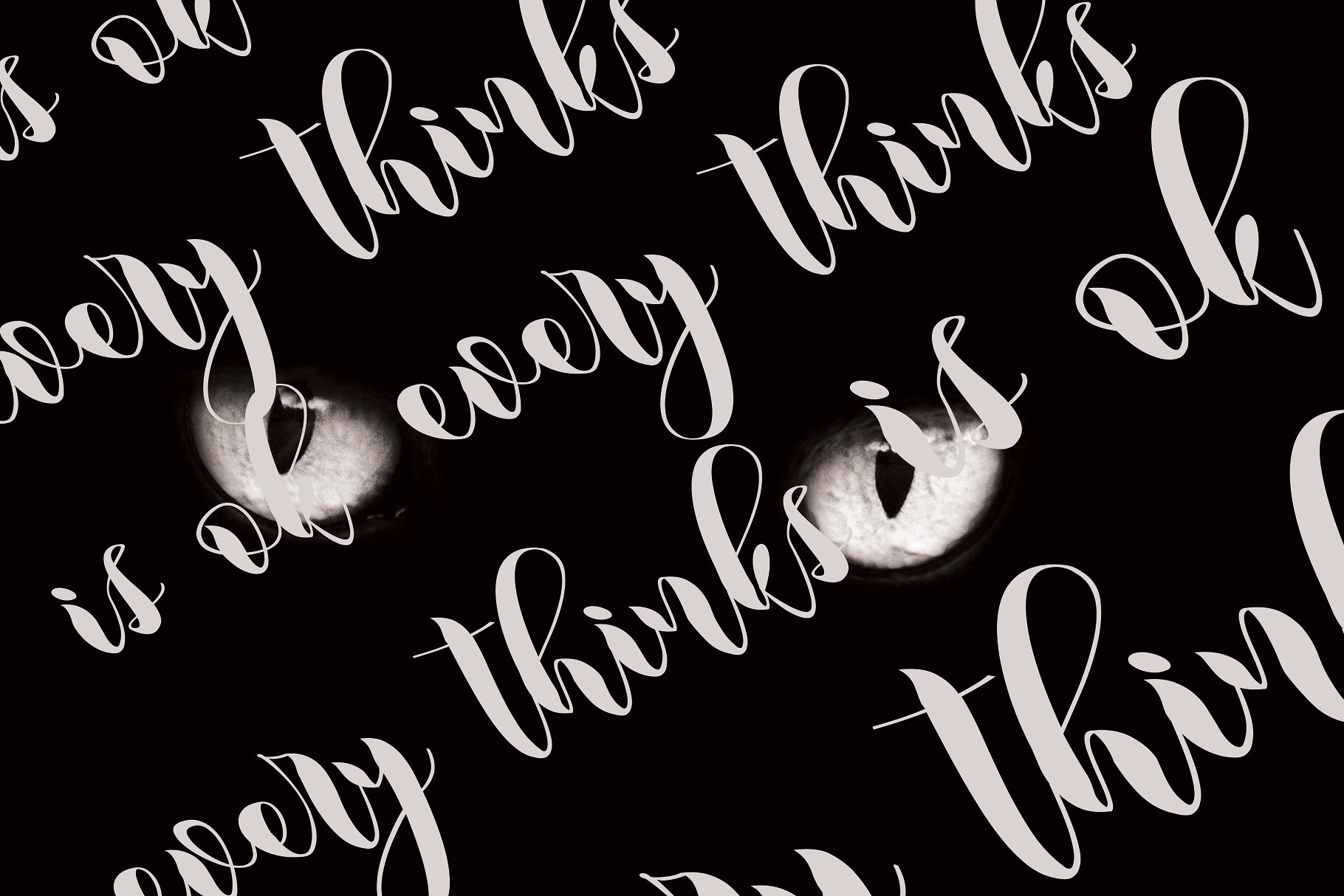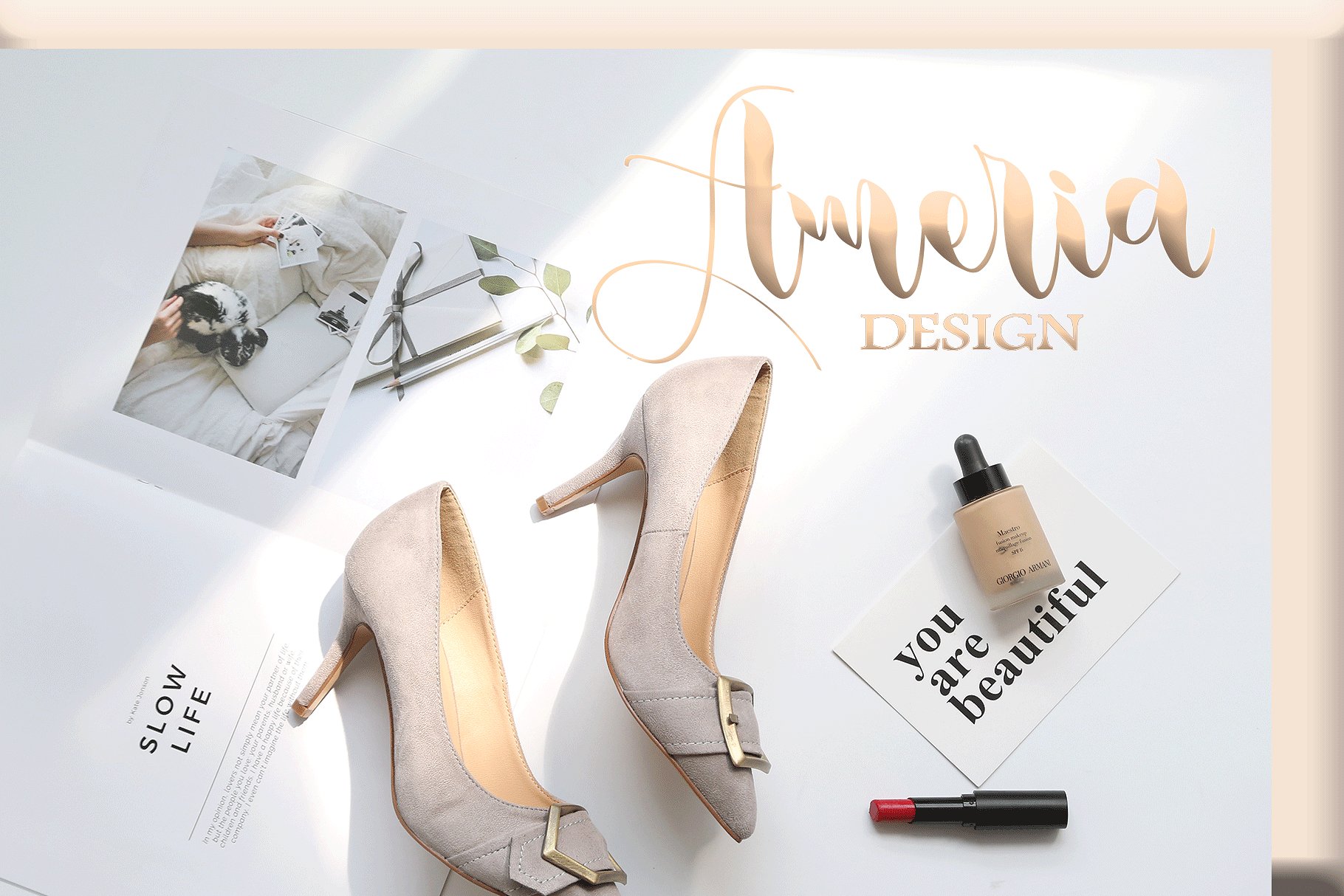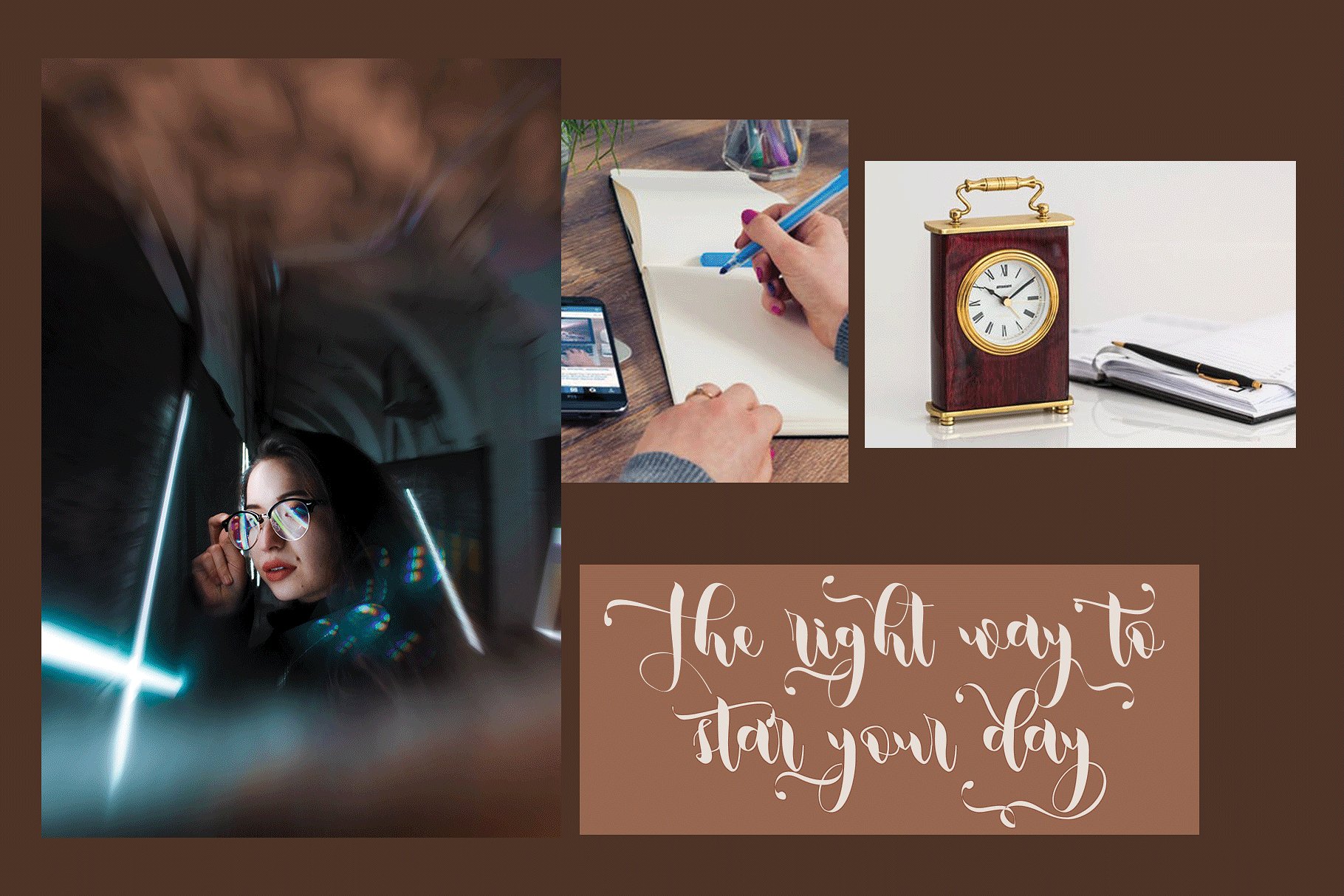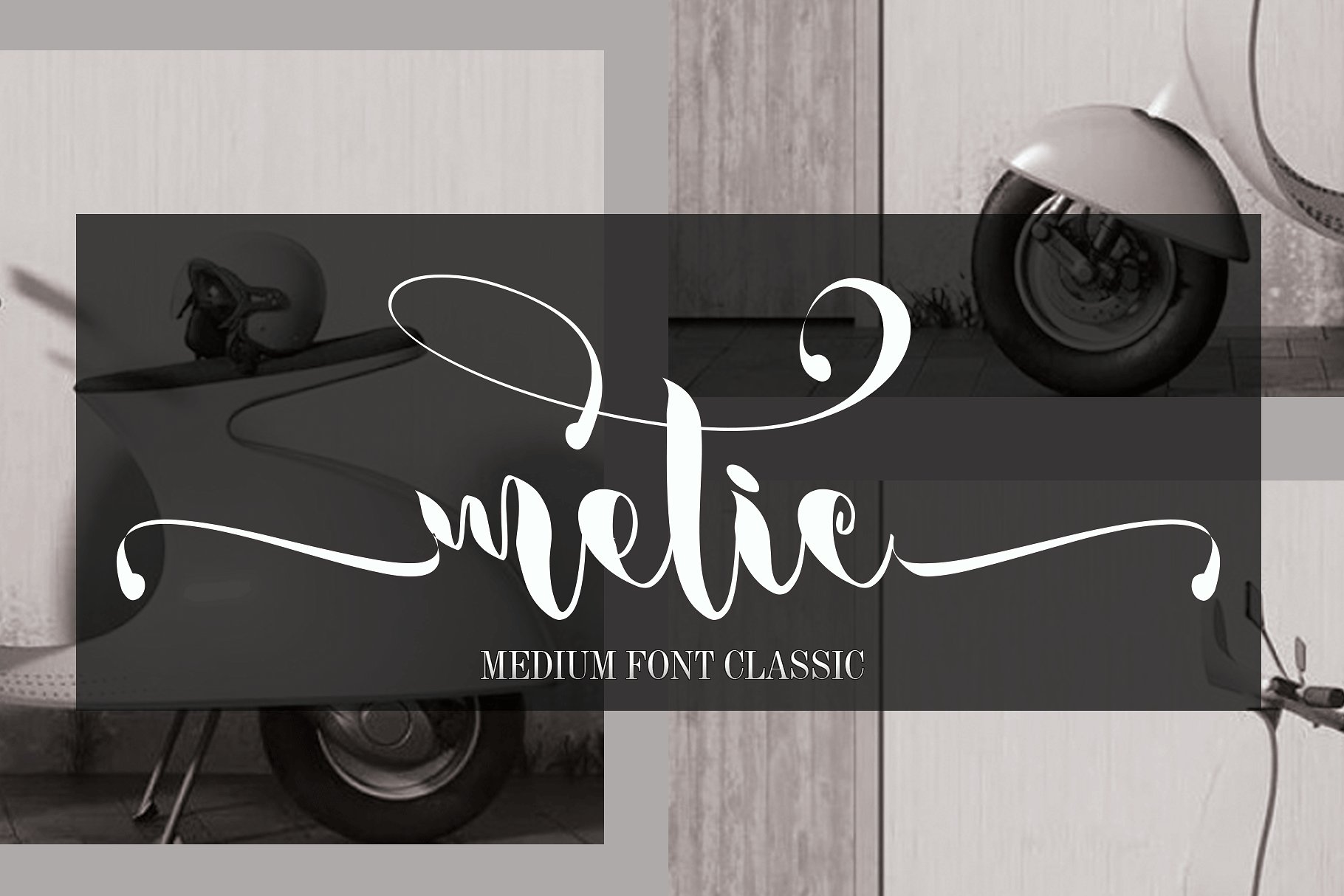
Metic Calligraphy Font
Hello world..! I am happy to introduce you to a calligraphy font. Introducing Metic Font! Metic font is a medium classic font look clasic style , this font present with new style with a neat form of style again, we can only present a font with a different character in making various needs in accordance with the invitation and other designs you need…